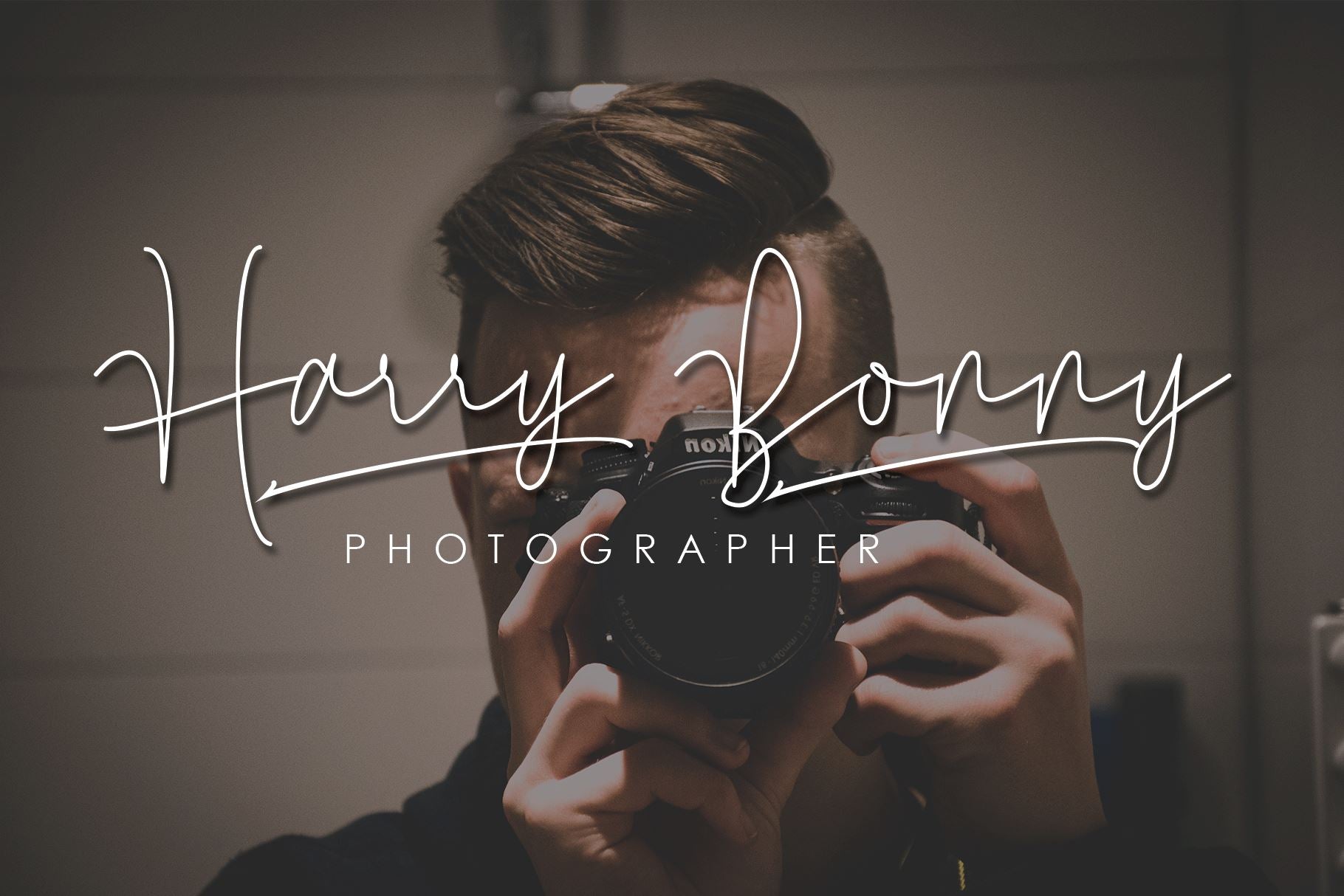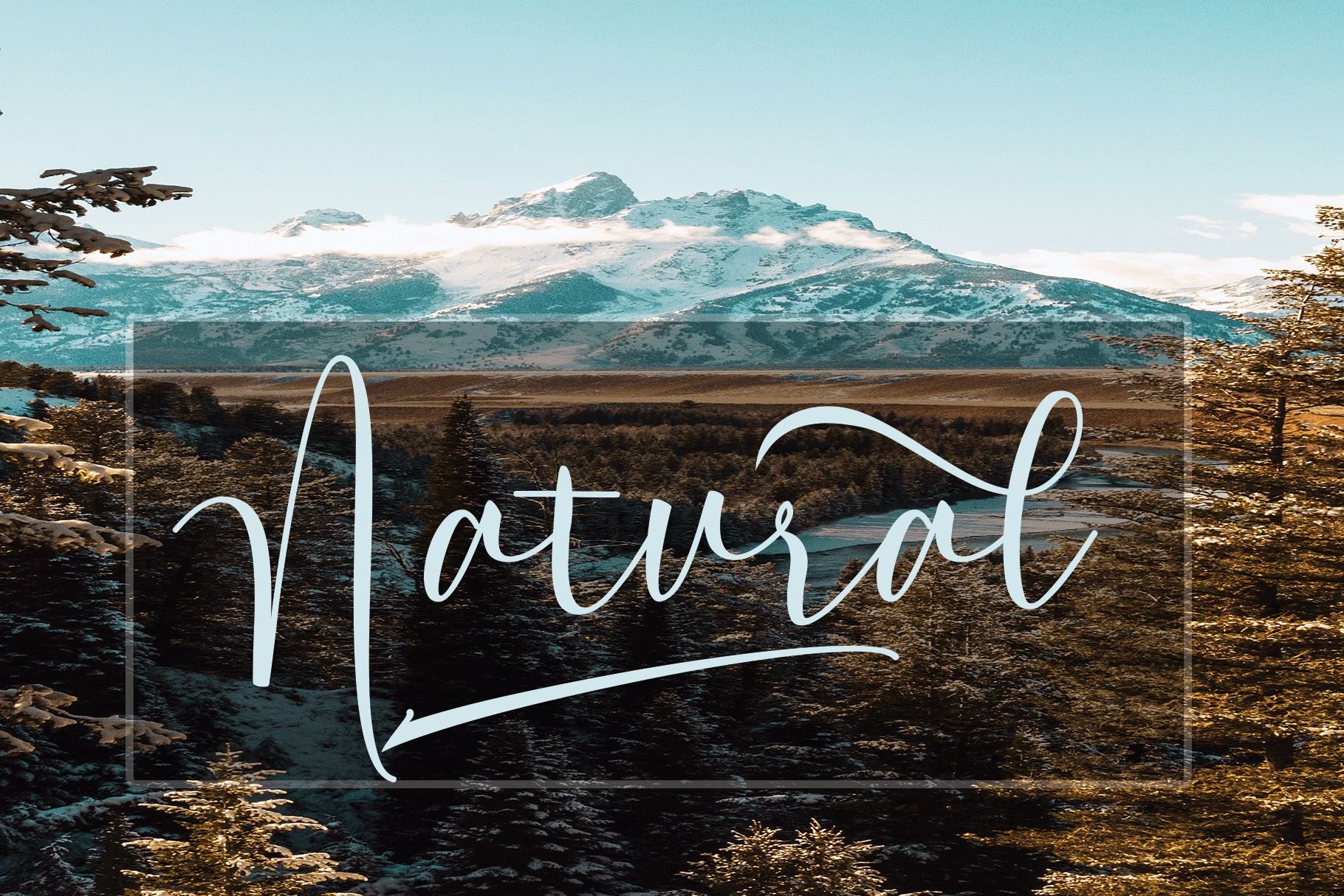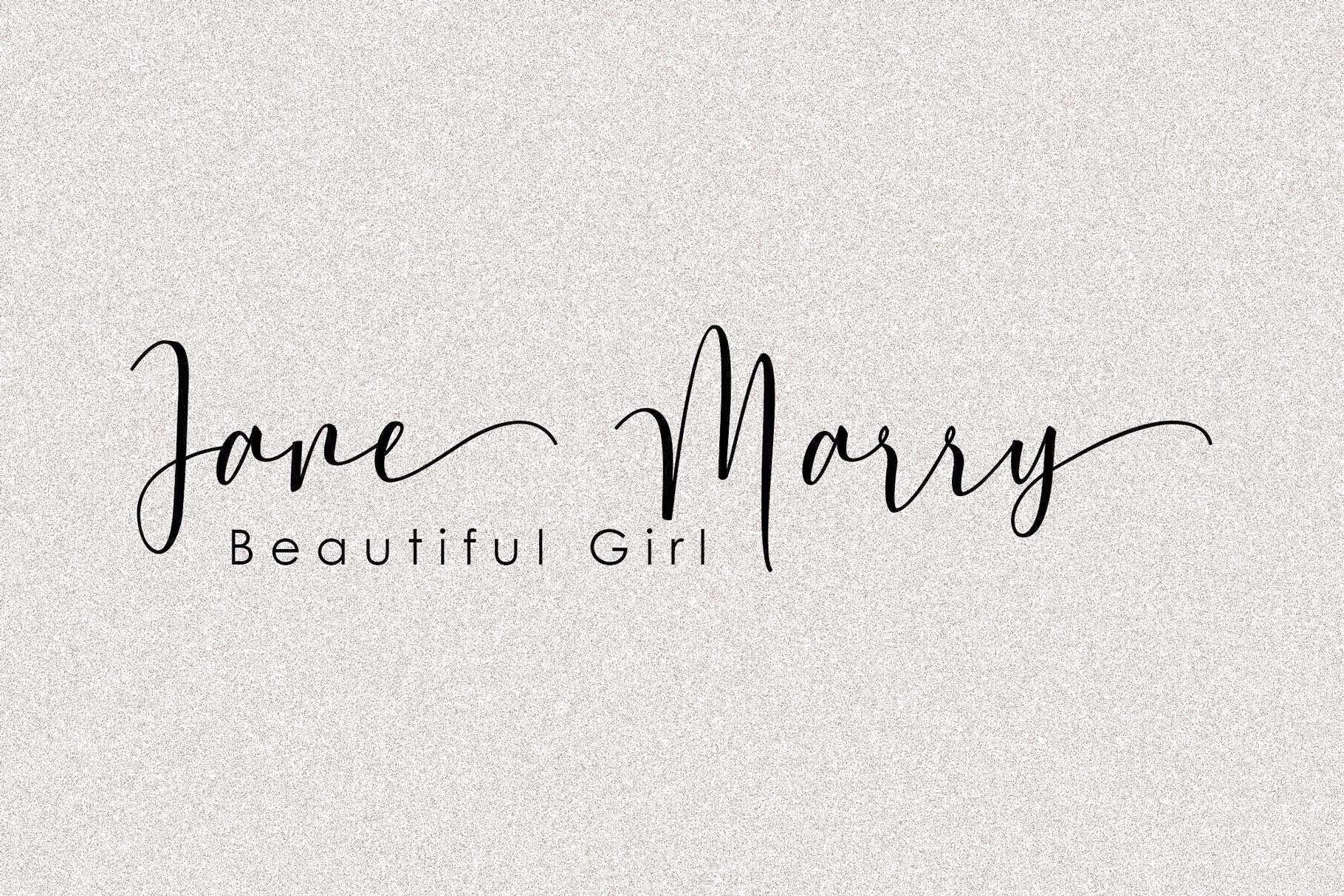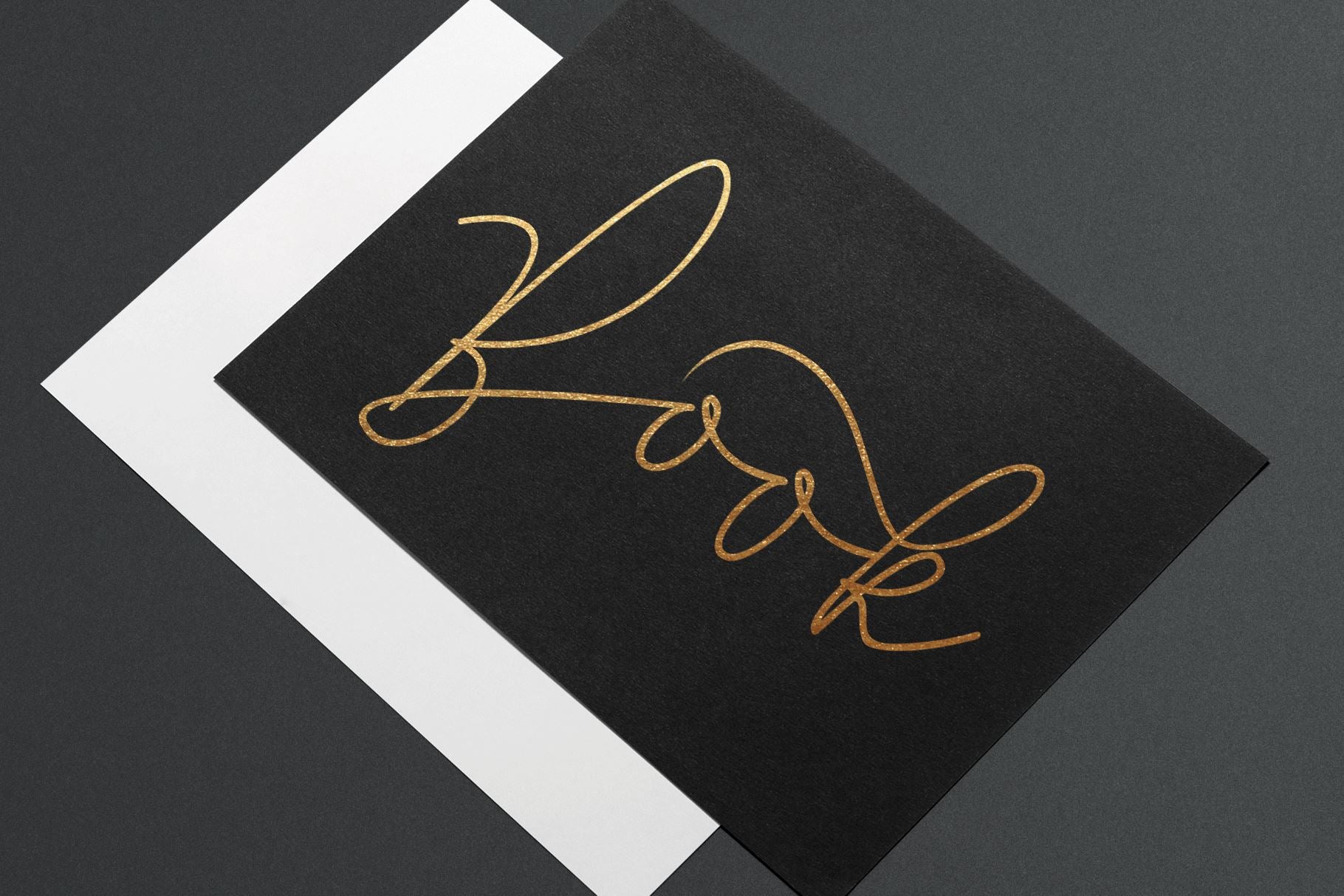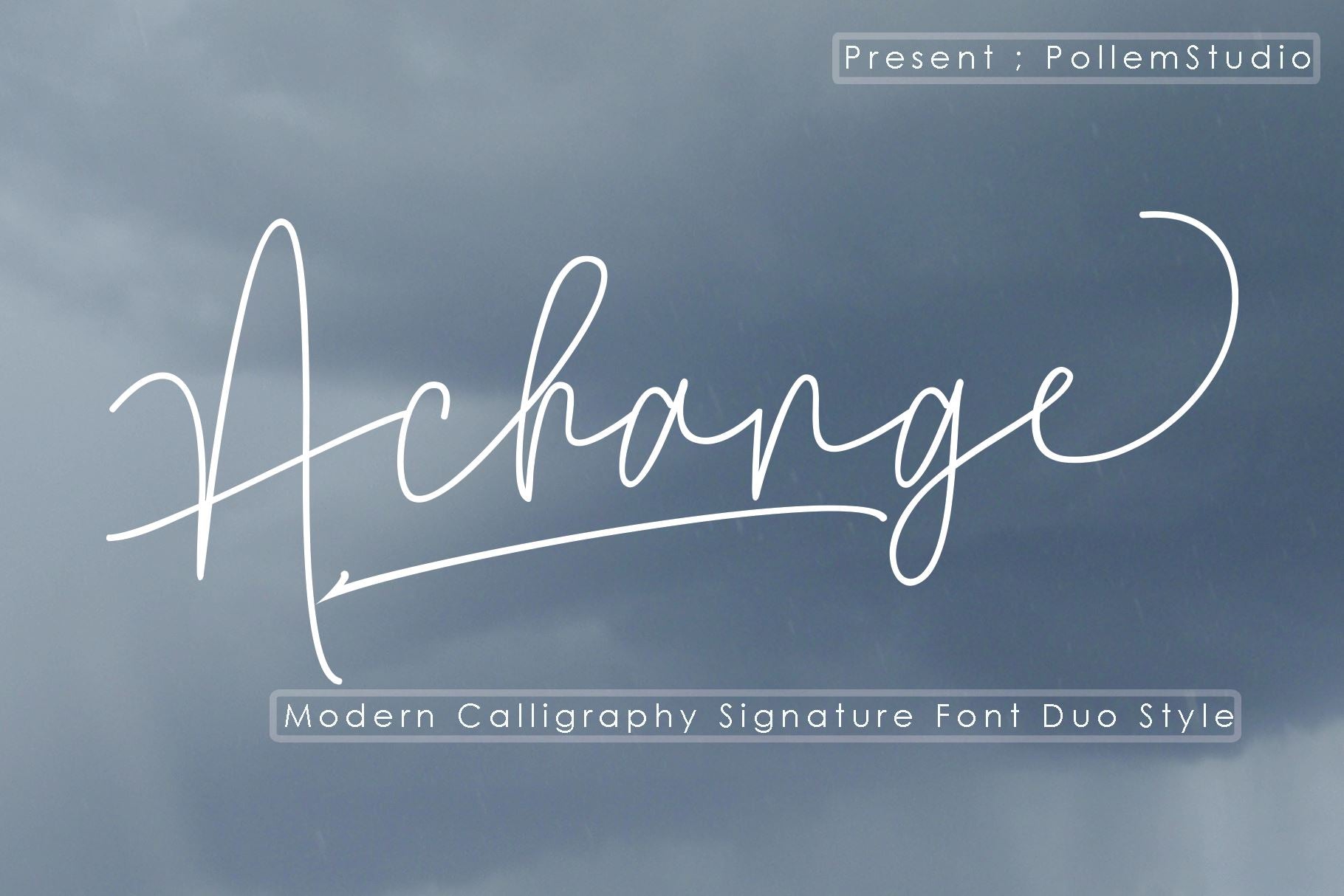
About Achange Script
Achange Font Script are duo fonts of Achange line and Achange regular stylish calligraphy that have a varied base line,, this is something unique but very beautiful, luxury and charming. This font is to complement your design needs in making amazing works. Achange Script is perfect for branding, wedding invitations, magazines, mugs, business cards, quotes, posters, and many more that you can use on your big project will be very beautiful. Achange Script has been equipped with the OpenType feature and has many glyphs. and of course having a lot of flying machines will be able to choose letters to your liking, lots of variations and choices for each letter, so you can adjust your design choices and also have other languages ??supported. which you will get in this package: The Features of this fonts is: * Standart ligatures * Stylistic Alternates * Stylistic sets * Contextual Alternates * PUA Unicode (Private Use Areas) * Swash Files included: * Achange TTF * Achange OTF * Achange Line TTF * Achange Line OTF * Achange WEB (EOT, SVG, WOFF) * Achange Line WEB (EOT, SVG, WOFF) do not hesitate to buy and have this gorgeous font, as i will soon be updating for the version Programs that support in this font is a Photo Shop, Adobe Illustrator, Adobe Indesign, Corel Draw and Microsoft Office. Can be used for various purposes.such as headings, logos, wedding invitation, t-shirt, letterhead, signage, lable, news, posters, badges etc. To enable the OpenType Stylistic alternates, you need a program that supports OpenType features such as Adobe Illustrator CS, Adobe Indesign & CorelDraw X6-X7. This font is very suitable for use with programs that support OpenType features such as Adobe Photoshop Cs / Adobe Photoshop CC, Adobe Illustrator CS / Adobe Illustrator CC, Adobe Indesign and Corel Draw and many more programs that support OpenType. if you have any questions, don’t hesitate to contact me via email  Thank you and happy designing.